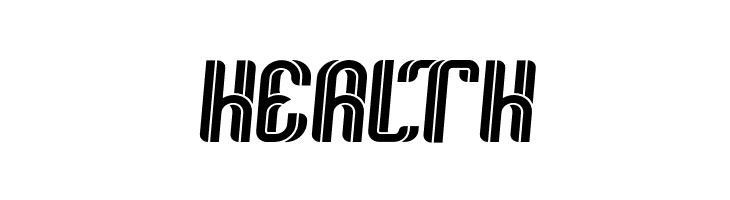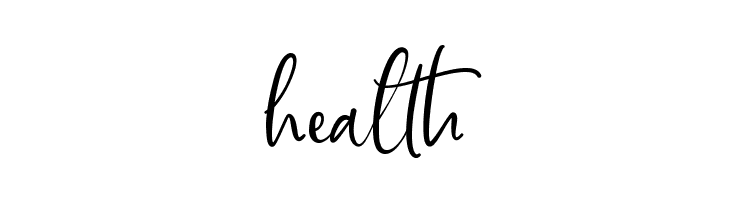
A bold, high-contrast italic font with a modern and dynamic style.
An elegant script font with flowing, interconnected characters and refined flourishes.
A bold, flowing script font with elegant, connected letters.
An elegant script font with flowing lines and decorative swashes.
A bold, hand-drawn font with a brush-like texture and artistic flair.
A dynamic, fluid handwritten script with elegant, flowing characters.
A graceful, cursive script font with elegant, flowing lines.
A playful, bold handwritten font with a whimsical touch.
An elegant, cursive font with ornate swirls and flourishes.
A playful and elegant handwritten script with flowing, interconnected strokes.